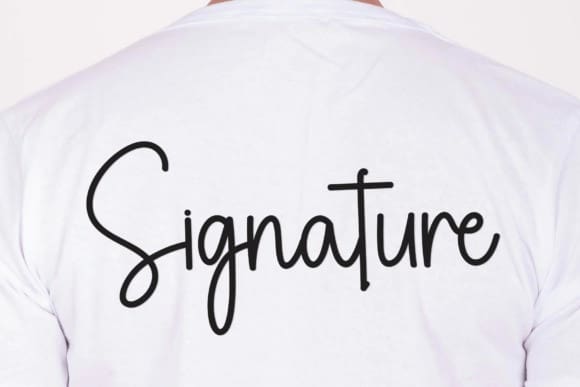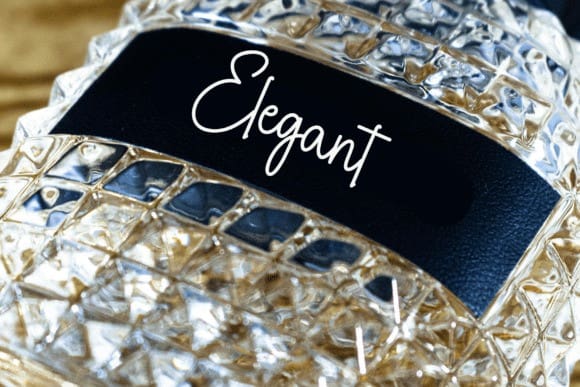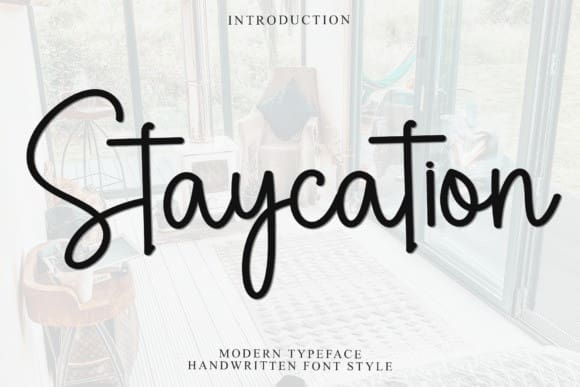
Rainday Staycation Font
Rainday Staycation Font is a sweet and delicate handwritten font. Dainty and joyful, this font will be ideal for writing wedding invitations, cards or any other design that may need a romantic, personalized touch!